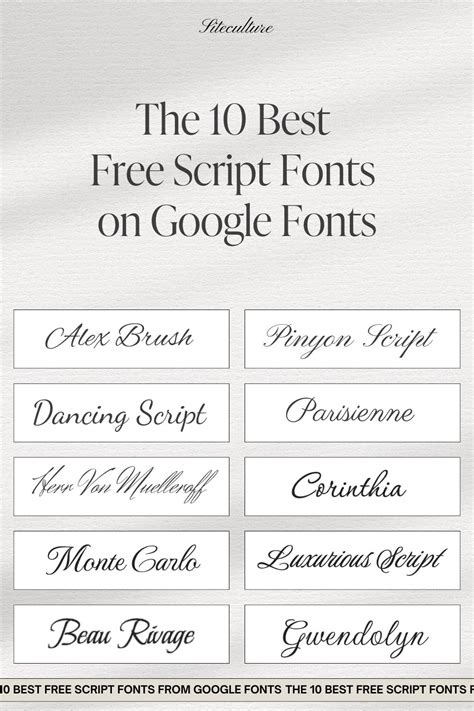
10 Free Google Script Fonts from Cursive to Handwriting
Google Fonts Script. A nice thick script with good readability and interesting letter shapes. It has cursive forms, with highly slanted and condensed characters, giving continuity to the over all.
10 Free Google Script Fonts from Cursive to Handwriting